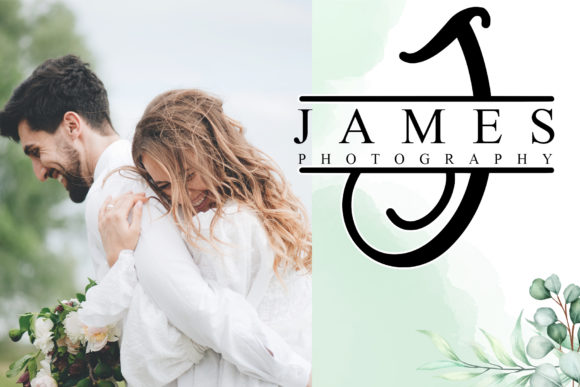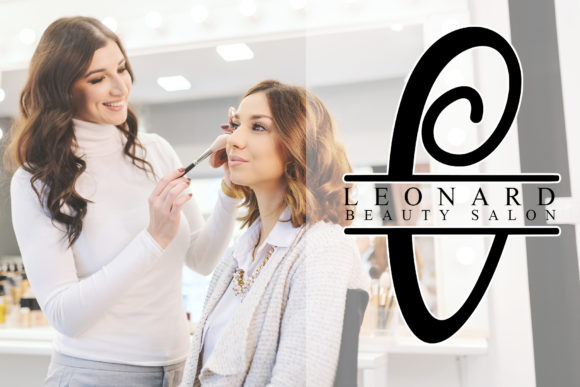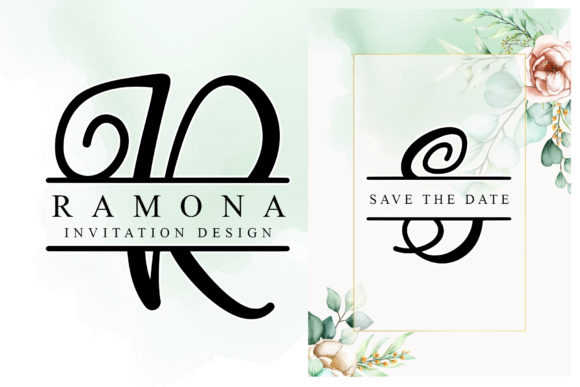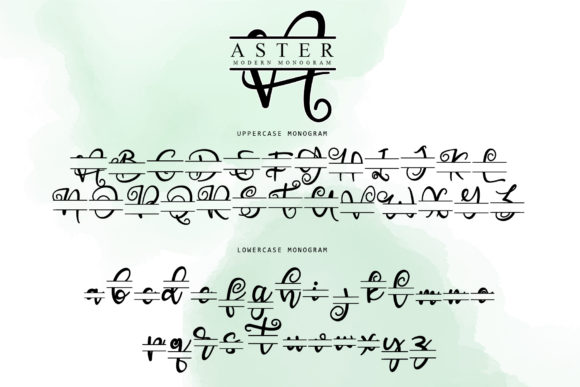
Aster Font: Elevate Your Creativity with Elegance
Aster is an incredibly unique and elegant decorative font. Masterfully designed to become a true favorite, this font has the potential to bring each of your creative ideas to the highest level! Whether you’re a designer, crafter, or simply someone who appreciates beautiful typography, Aster Font is sure to captivate you with its charm and versatility.
The Design Behind Aster Font
Aster Font is the brainchild of talented designers who aimed to create a typeface that stands out from the crowd. With meticulous attention to detail, they crafted a font that exudes elegance, sophistication, and a touch of whimsy. Each letterform is carefully designed to showcase a perfect balance of curves and lines, making Aster Font a true masterpiece.
What Makes Aster Font Special?
- Unique Character: Aster Font boasts a distinct character that sets it apart from other fonts. Its elegant and refined appearance makes it perfect for projects that require a touch of sophistication.
- Versatility: This font is incredibly versatile, making it suitable for a wide range of applications, from branding and advertising to packaging and digital media.
- Readability: Despite its decorative nature, Aster Font remains highly readable, even at smaller sizes, ensuring that your message is conveyed effectively.
- Customizability: With Aster Font, you can experiment with various styles, sizes, and colors to create a unique look that reflects your brand or personal style.
Use Cases for Aster Font
Aster Font is an excellent choice for various design projects, including:
- Logos and Branding: Create a lasting impression with a custom logo that incorporates Aster Font, perfect for businesses, products, or services that require a touch of elegance.
- Wedding and Event Stationery: Add a touch of sophistication to your wedding invitations, save-the-dates, or event programs with Aster Font.
- Packaging Design: Elevate your product packaging with Aster Font, making it stand out on store shelves and online.
- Digital Media: Use Aster Font in your social media graphics, blog posts, or website headers to create a cohesive and visually appealing brand identity.
Tips for Working with Aster Font
To get the most out of Aster Font, keep the following tips in mind:
- Pair it with simplicity: Balance Aster Font with simpler fonts or design elements to avoid visual overload.
- Experiment with colors: Try different color combinations to find the perfect match for your brand or design.
- Pay attention to spacing: Ensure that your text is properly spaced to maintain readability and visual flow.
Aster Font is a true gem in the world of typography, offering a unique blend of elegance, sophistication, and versatility. Whether you’re a seasoned designer or a crafty DIY enthusiast, this font is sure to inspire your creativity and elevate your projects to new heights. With its wide range of applications and ease of use, Aster Font is an excellent addition to any design toolkit.